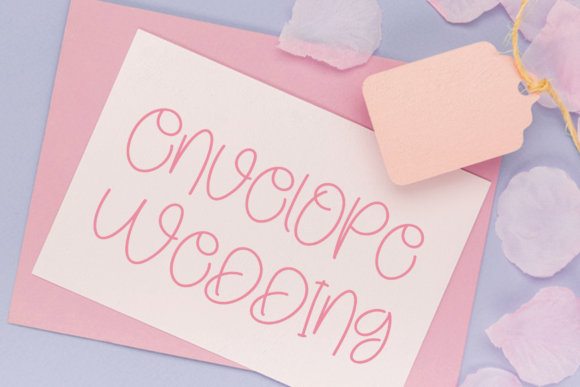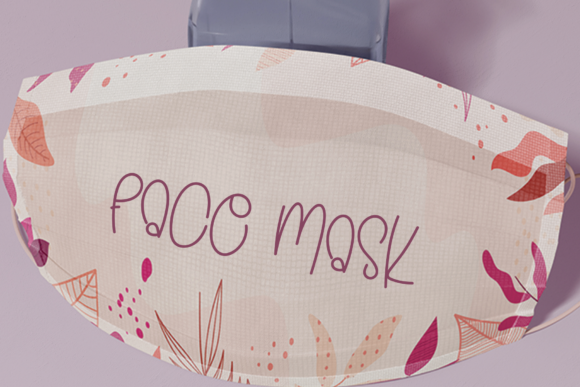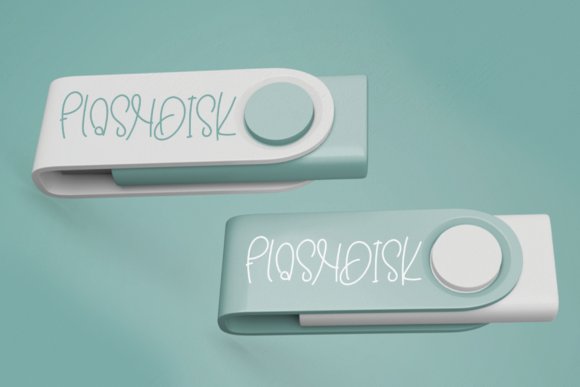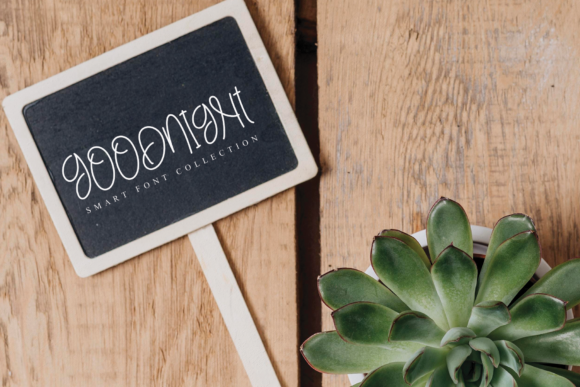
Disney for Handcraft Font
About Disney for Handcraft Font
Disney for Handcraft is a cute, thin lettered and whimsical handwritten font. Its natural and unique style makes it incredibly fitting to a large pool of designs. The only limit is your imagination!